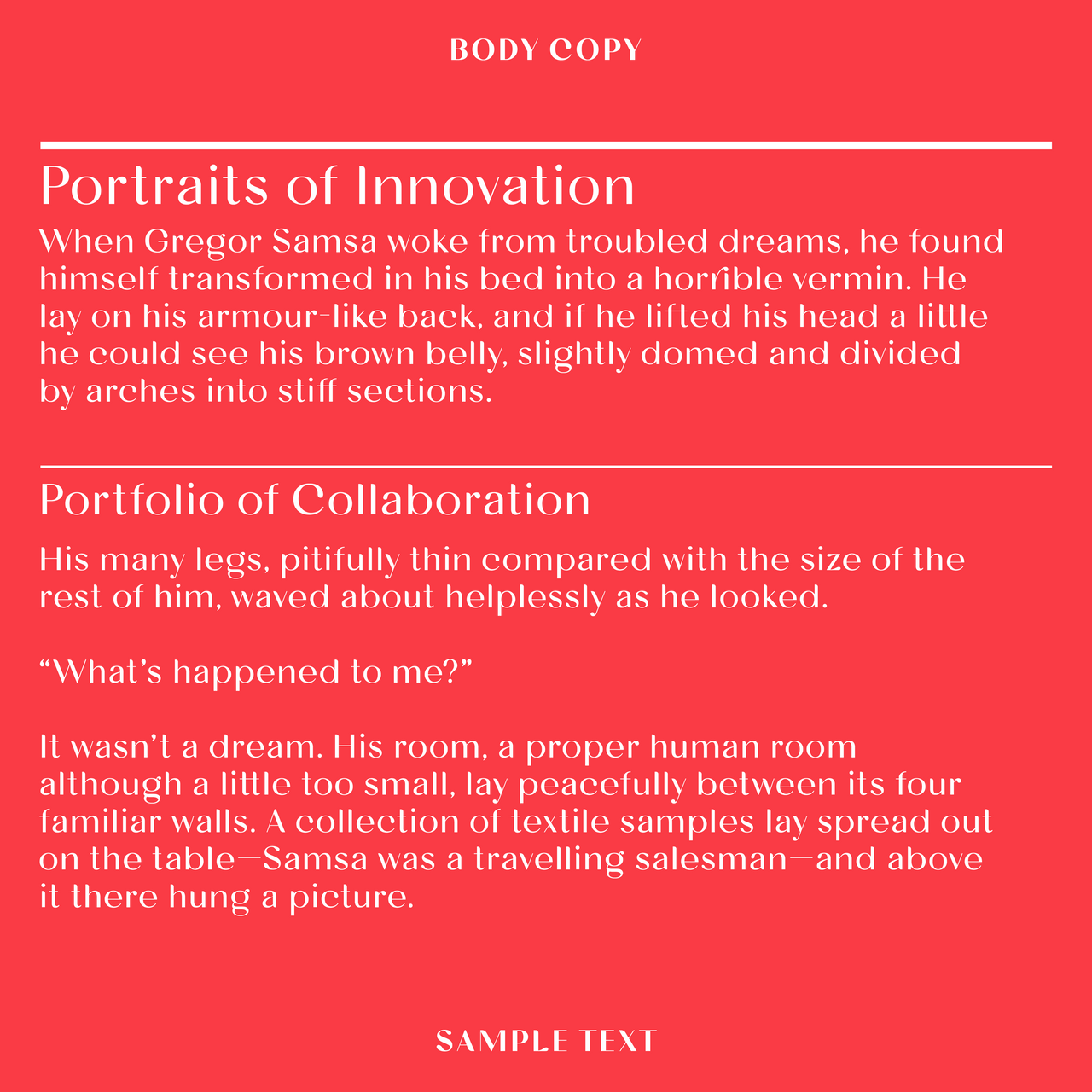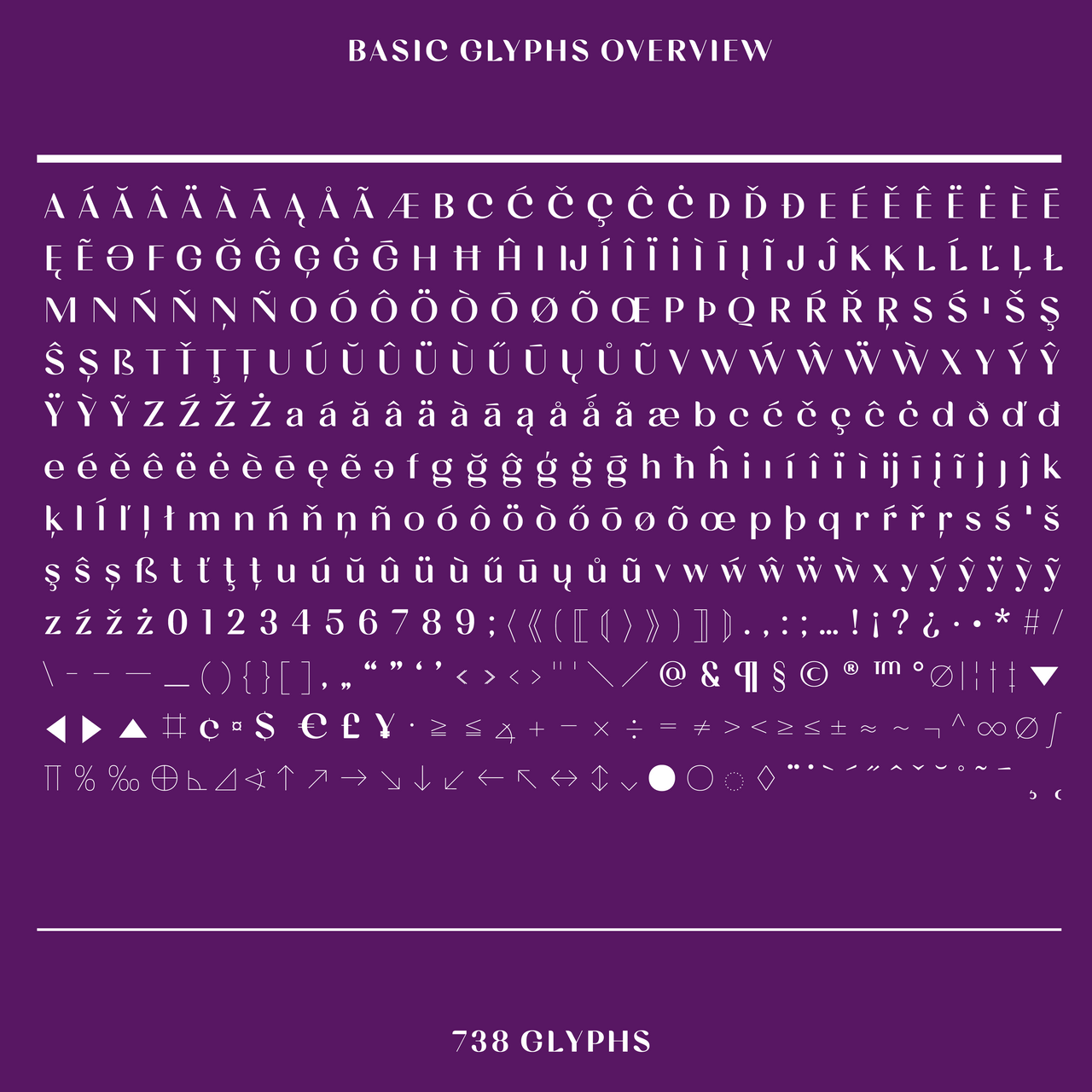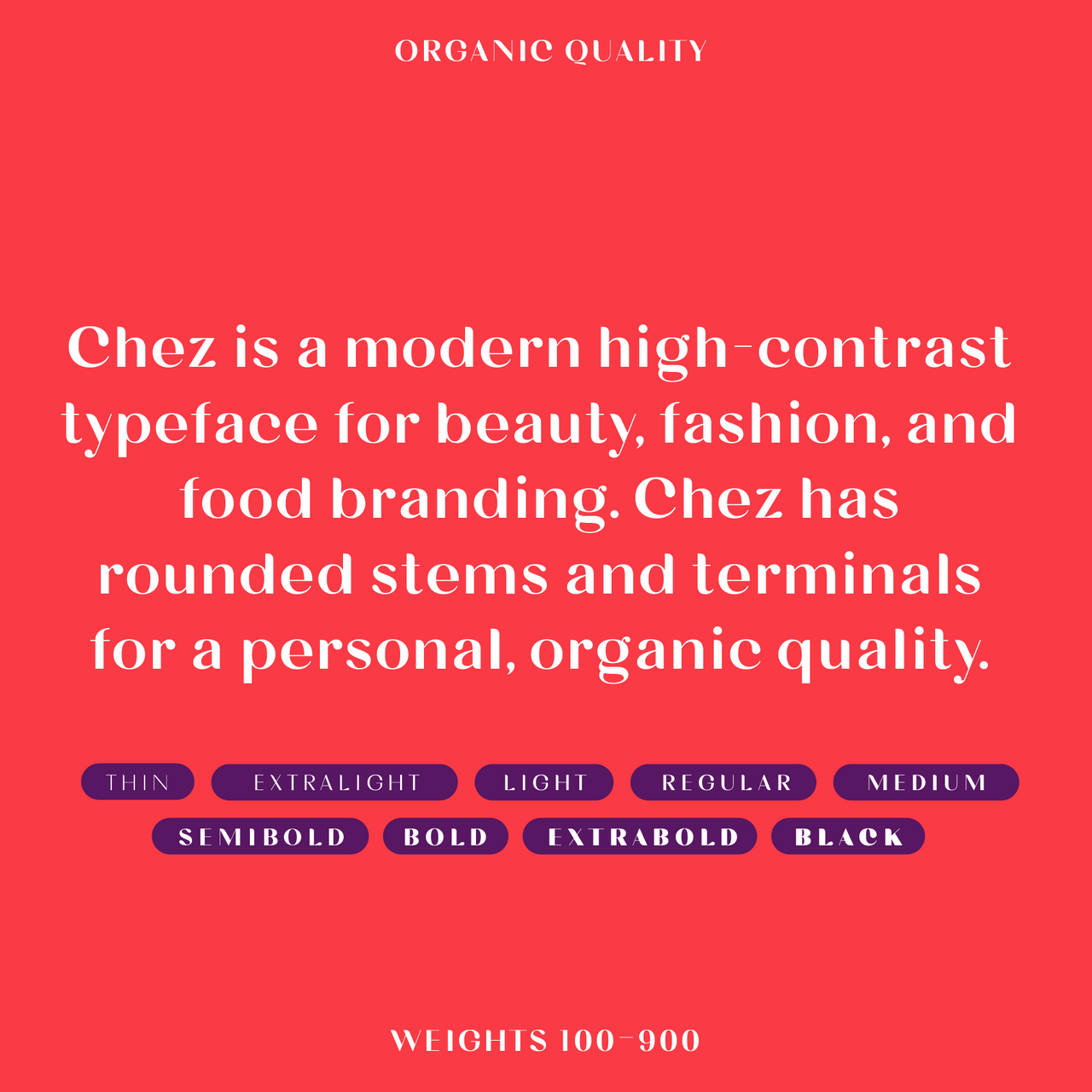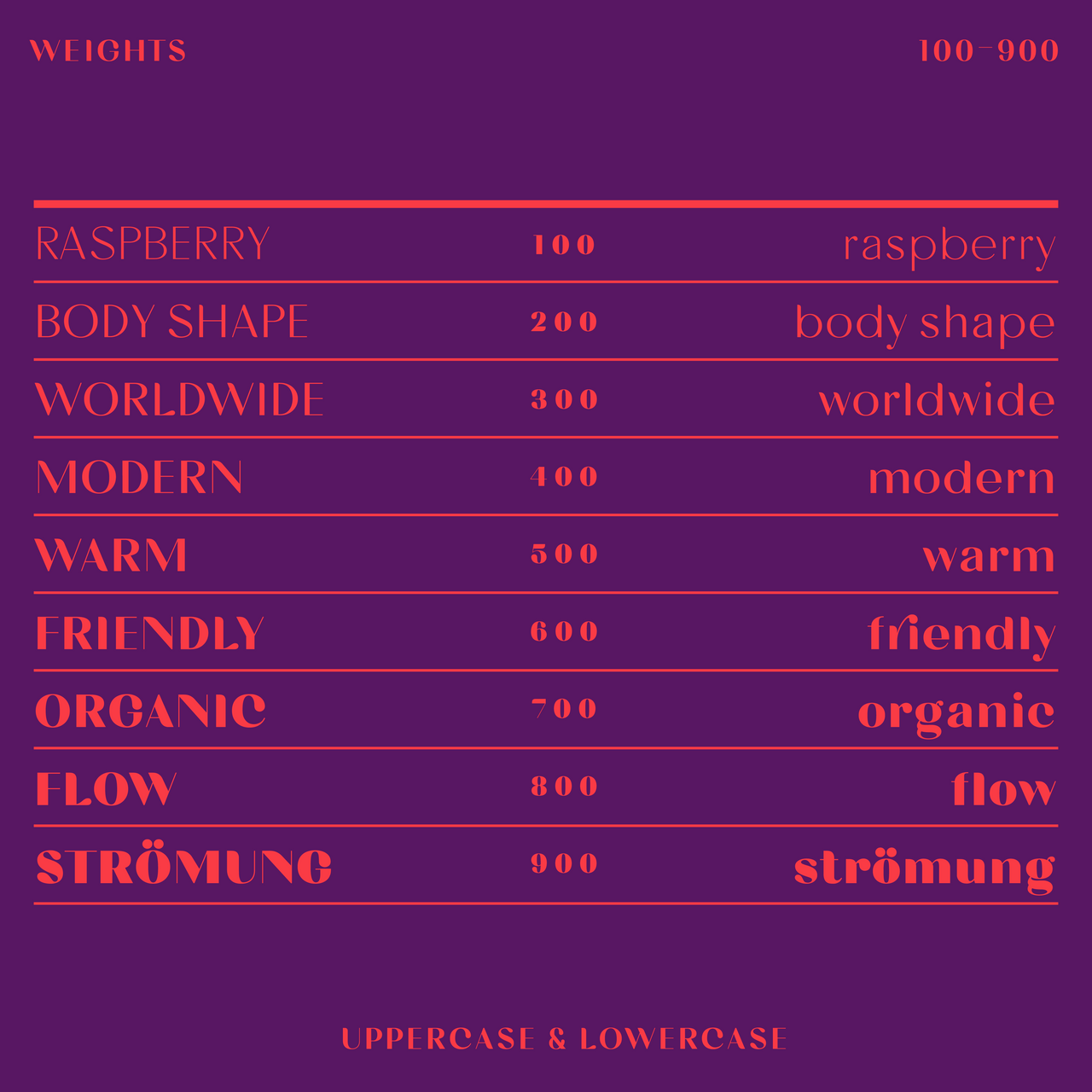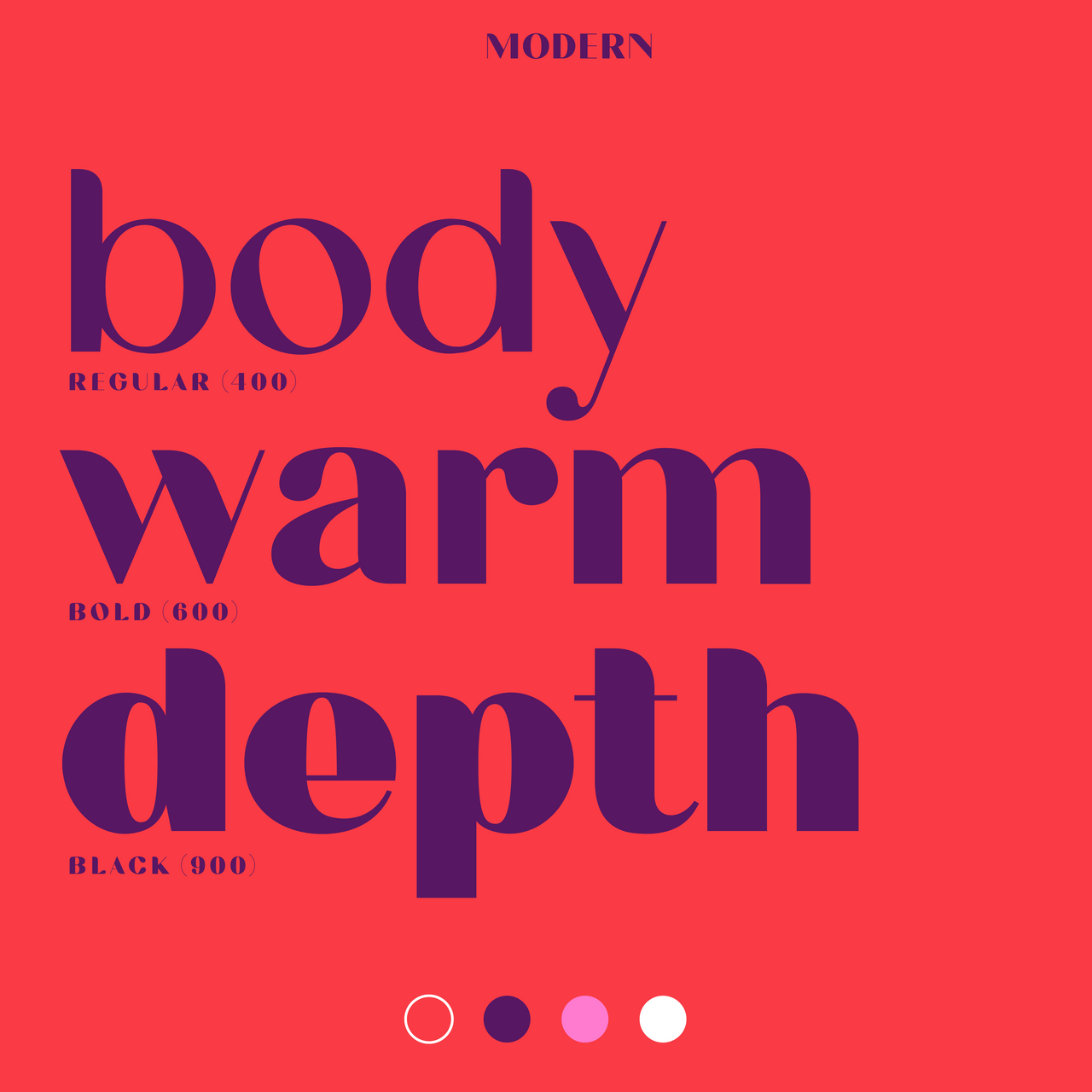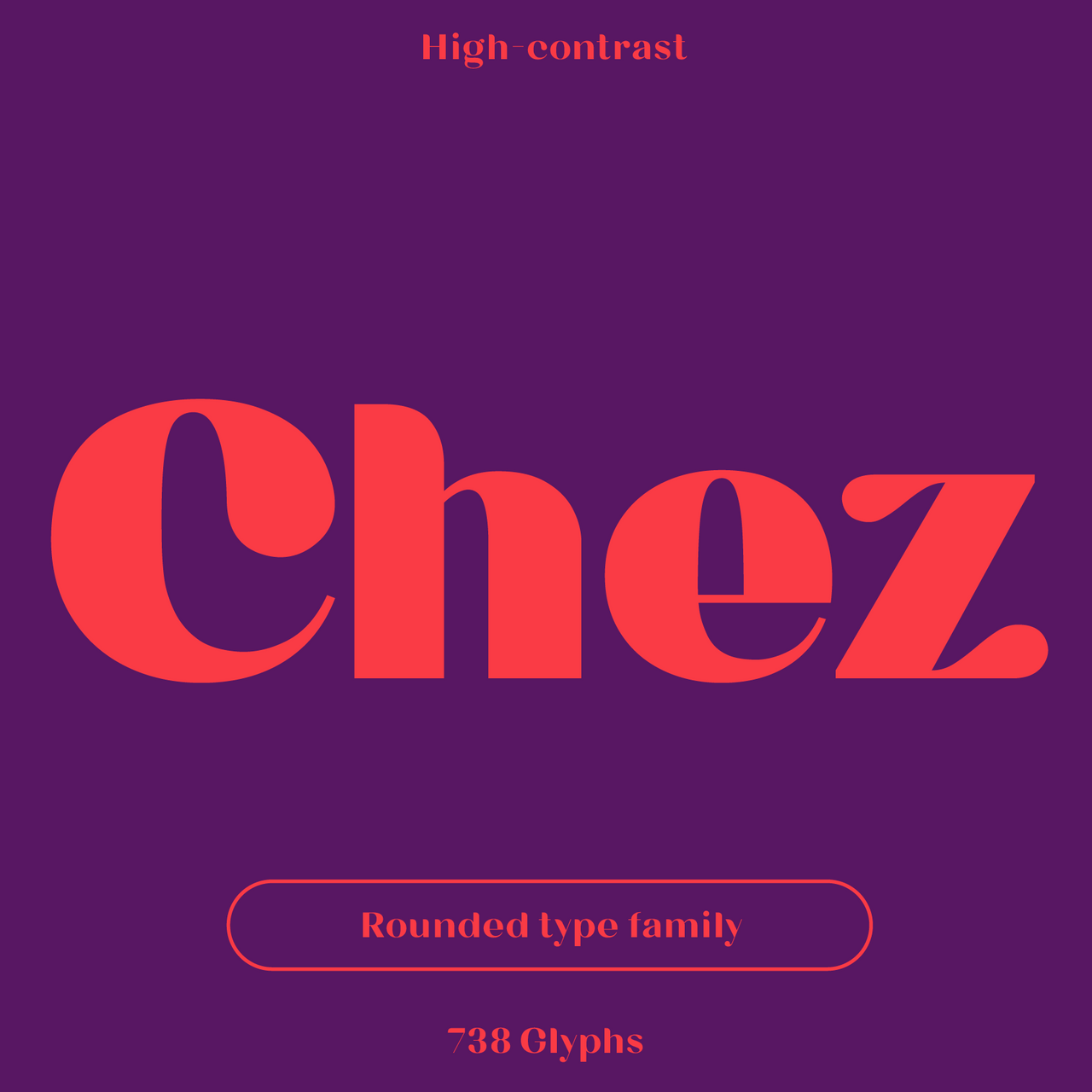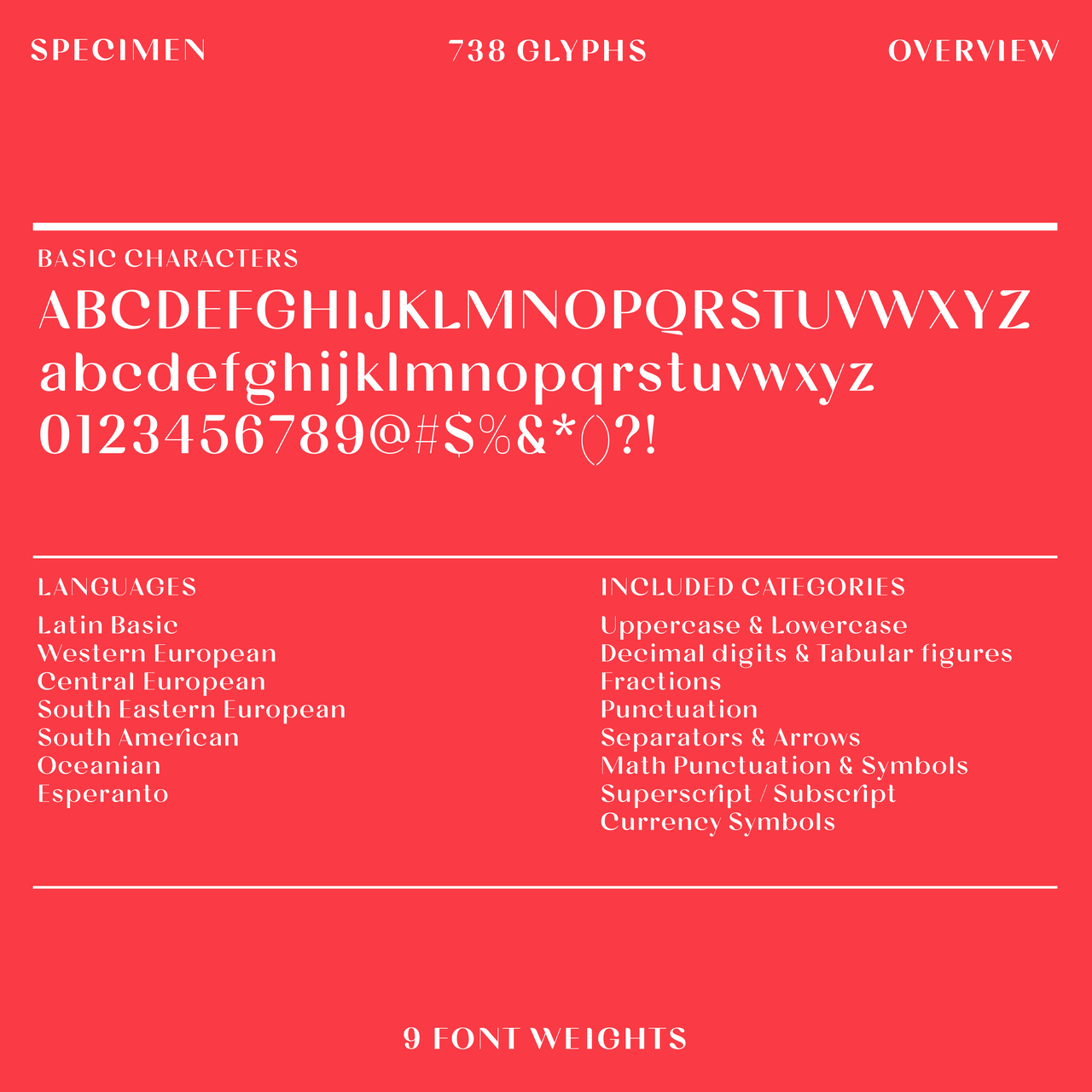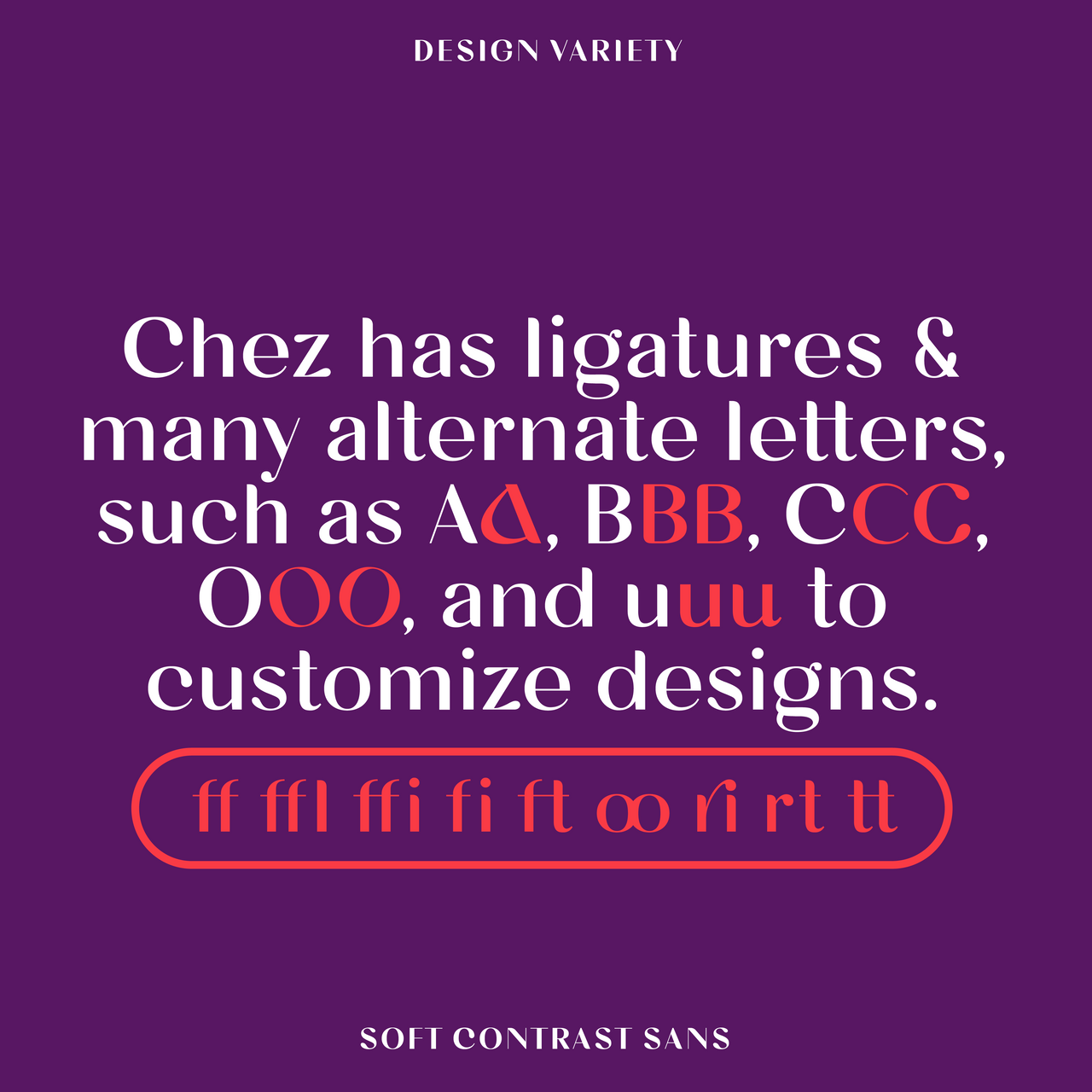
Bauhaus Chez—Rounded serif font, warm & high-contrast
Chez is a rounded contrast font perfect for beauty, fashion, and food branding. Chez has round stems and terminals for a personal feel. Organic and cozy. Available in 9 single weights and as a full family.